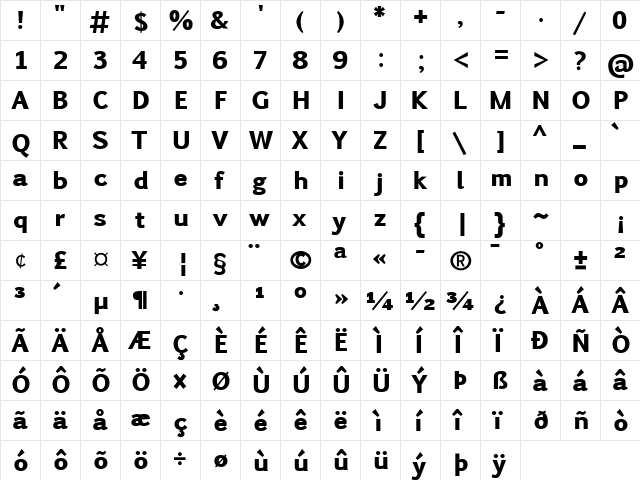
Pigiarniq Heavy Regular
| Designer | Wm. Ross Mills |
Design Context for Pigiarniq Heavy Typeface
Pigiarniq Heavy takes a measured approach to typography — its balanced proportions and neutral character make it a reliable workhorse for both digital and print work.